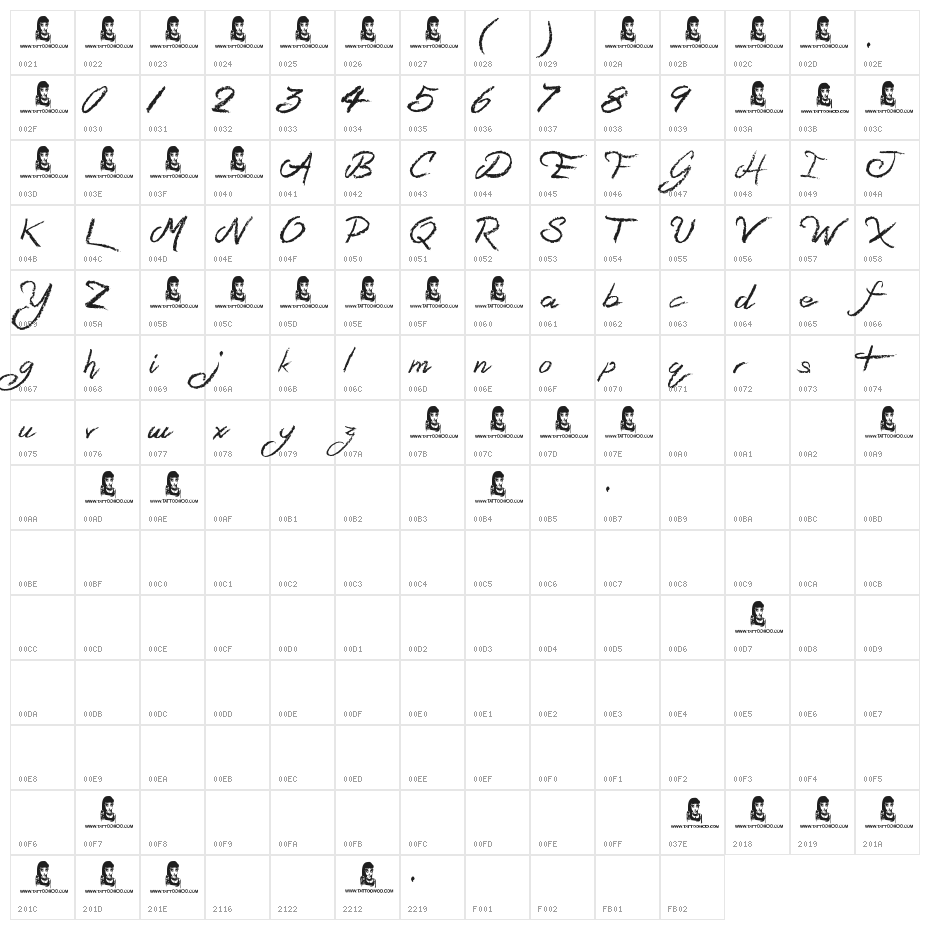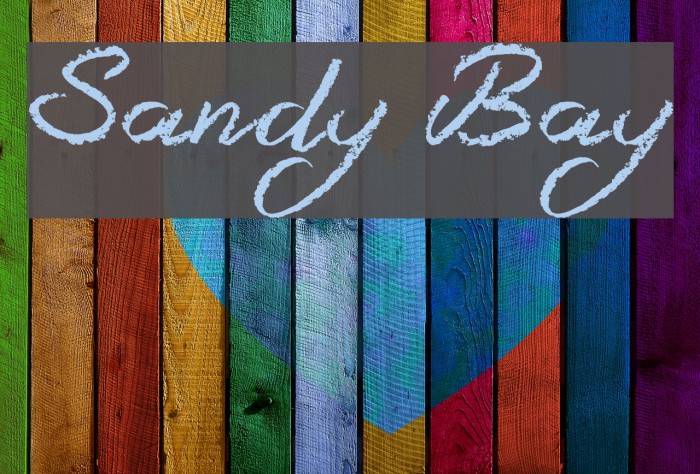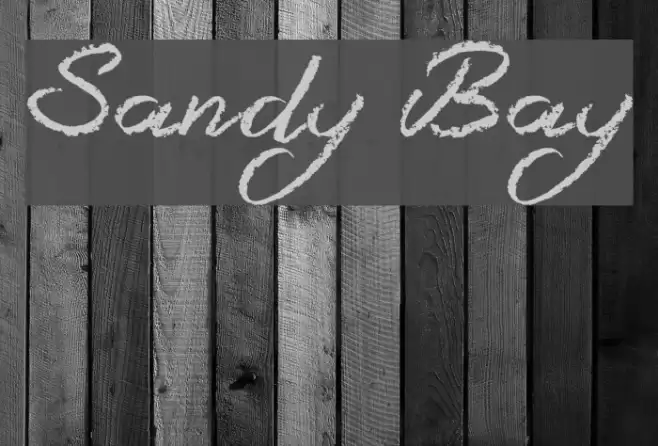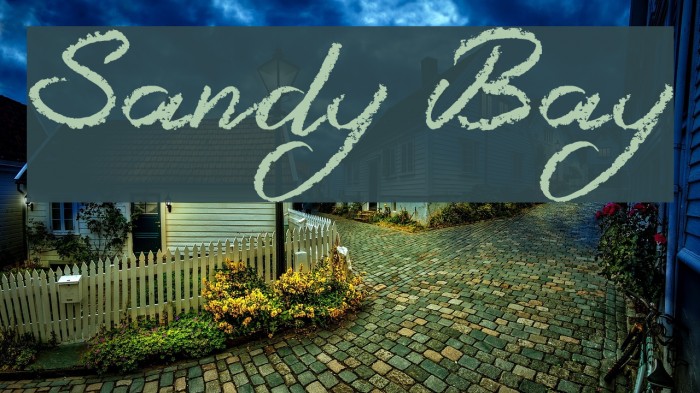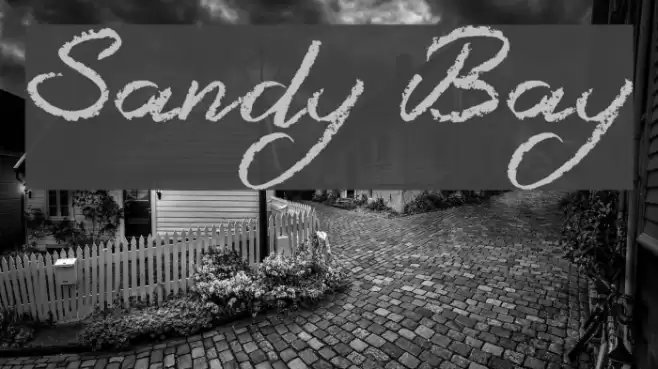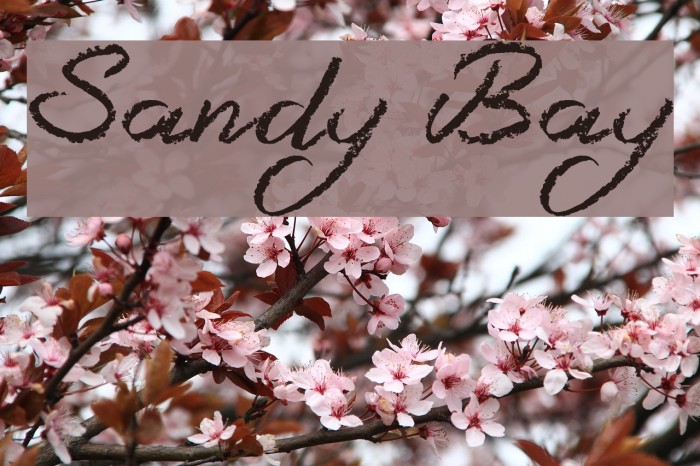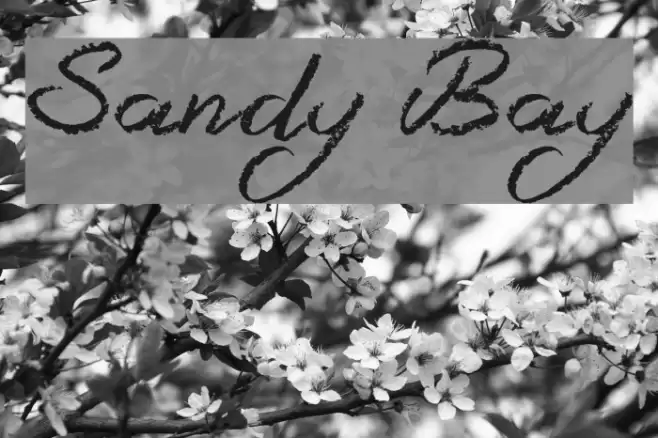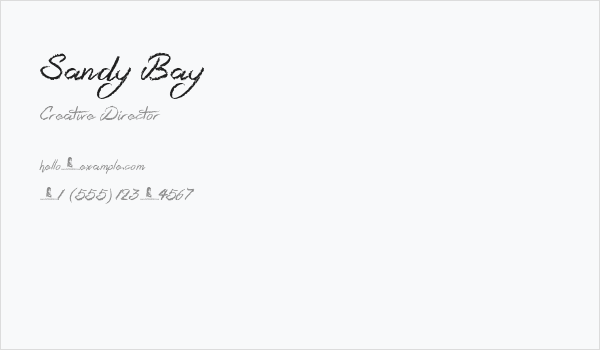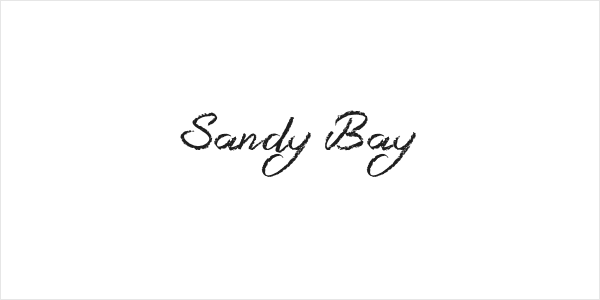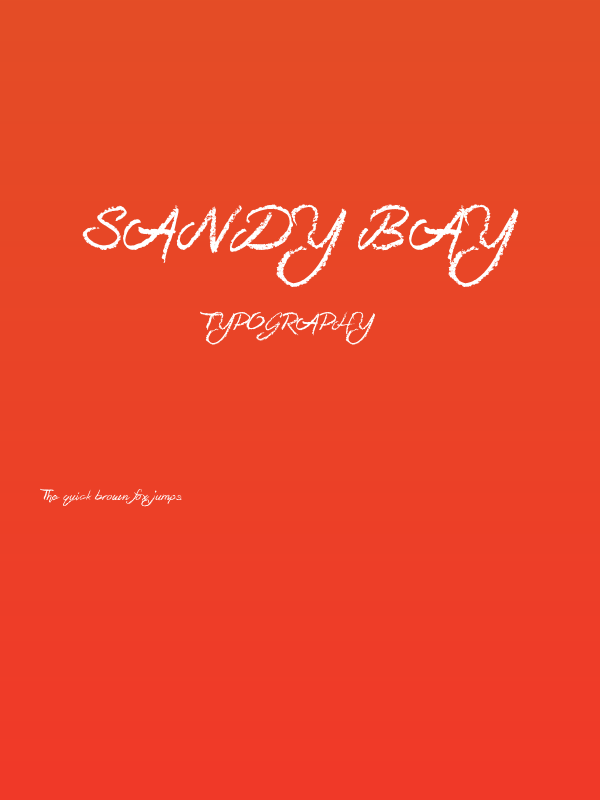
Sandy Bay Font
Sandy Bay Description
This font features a dynamic and expressive brush script style, characterized by its textured and rough edges that mimic the appearance of hand-painted strokes. The uppercase letters are bold and slightly slanted, giving a sense of movement and energy. The lowercase letters maintain a consistent flow with a casual, yet artistic flair. Numbers and special characters follow the same textured style, ensuring uniformity across all glyphs. This font's unique texture and style make it stand out, offering a creative and artistic touch to any design.